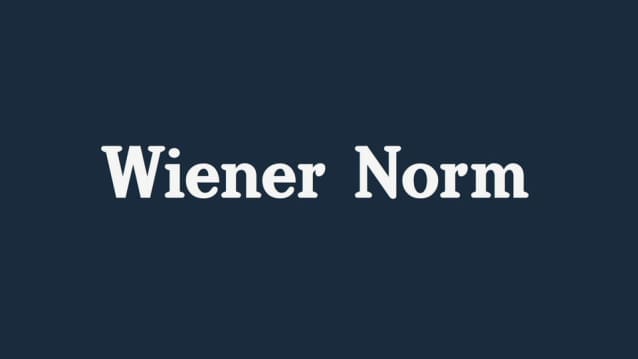
Wiener Norm Font
Wiener Norm Font was adapted to the modern requirements of electronic typesetting, greatly expanded in character range. Wiener Norm is designed as a display font and is therefore best suited for large type sizes.
About eighty years after the municipality of Vienna determined the appearance of the city’s street signs, I started the initial work for the digitalization of the WienerNorm. After the first drafts it became clear that a simple vectorization of the original drawings from 1923 would not result in a harmonious typeface.